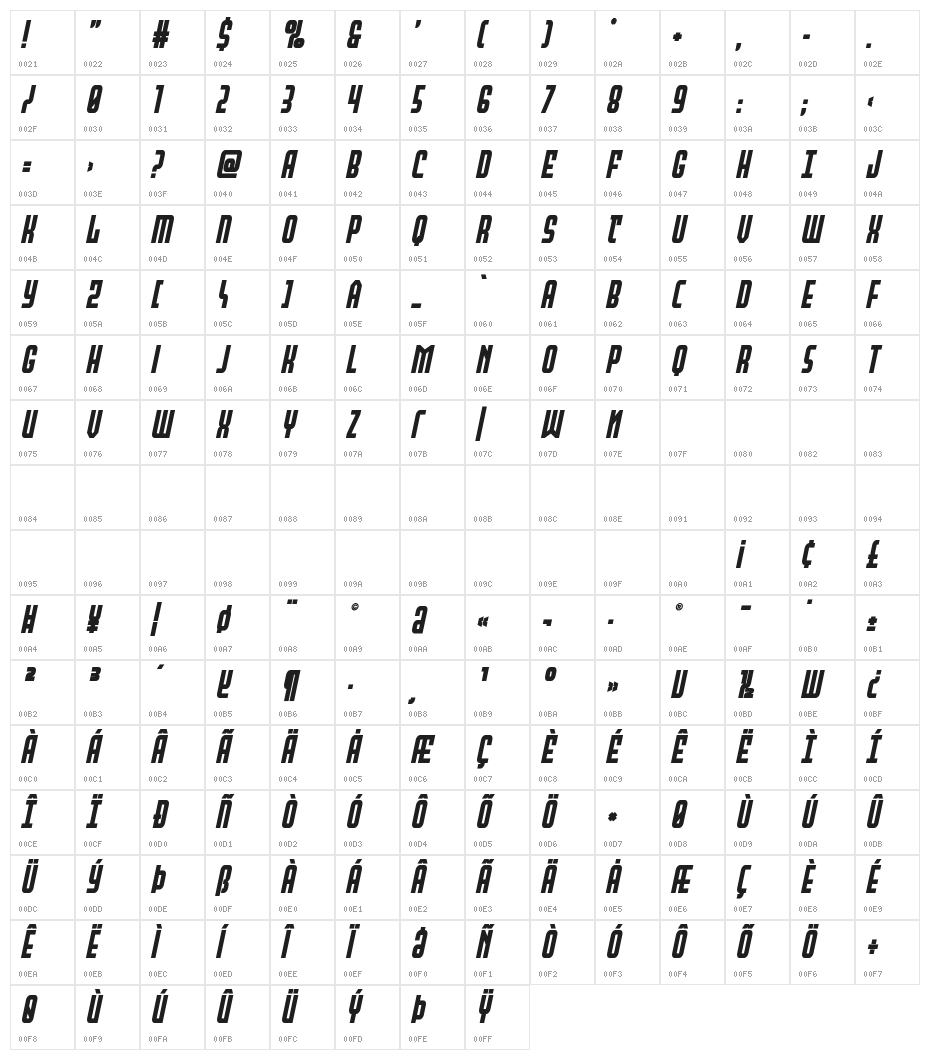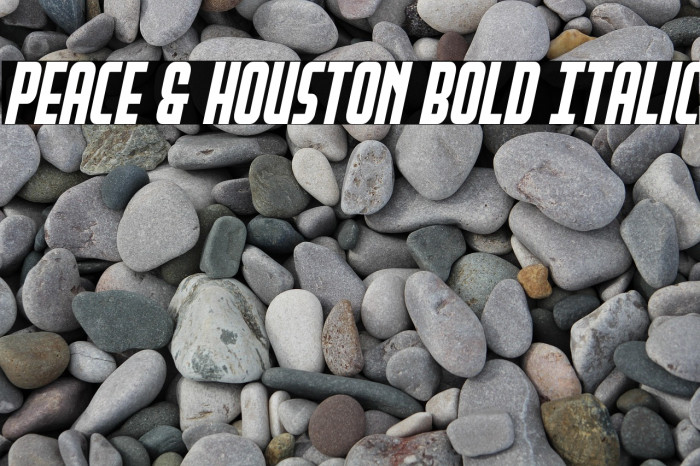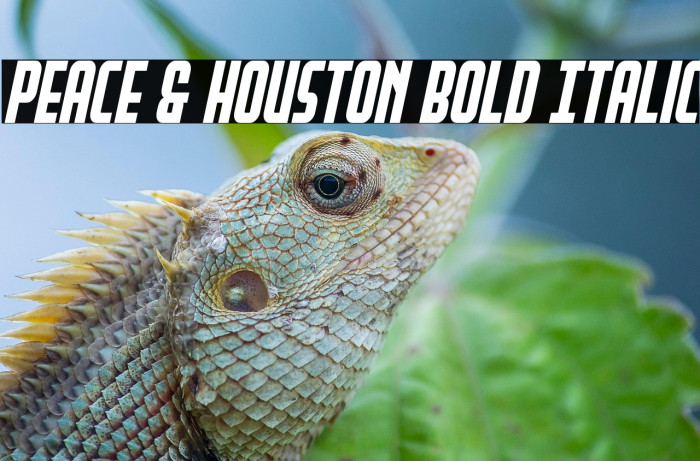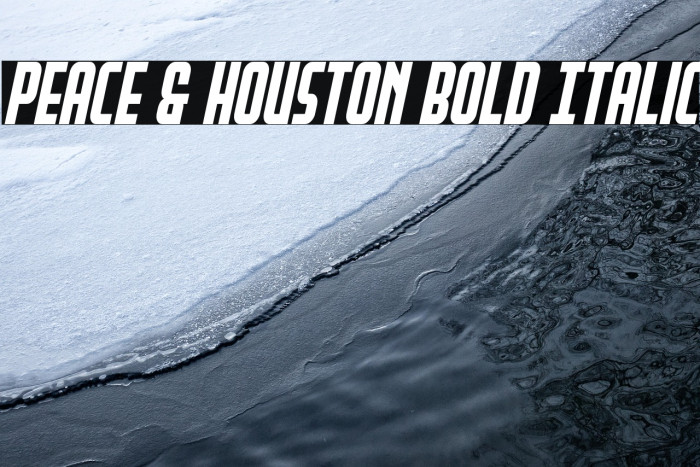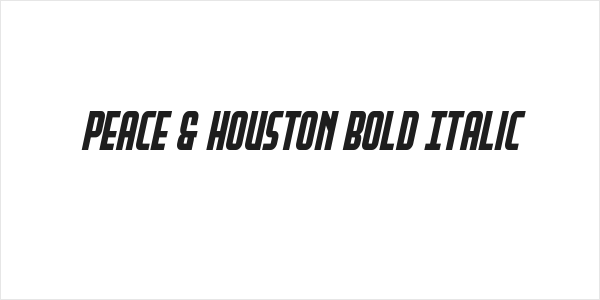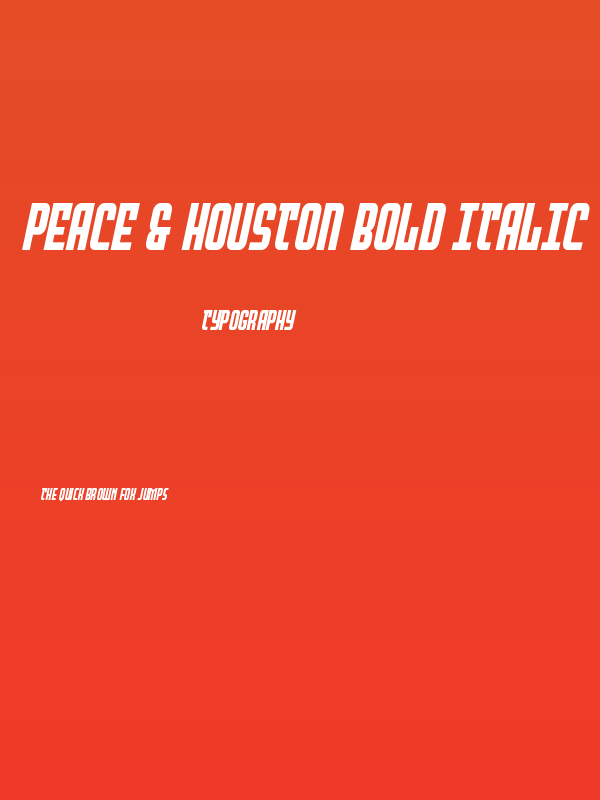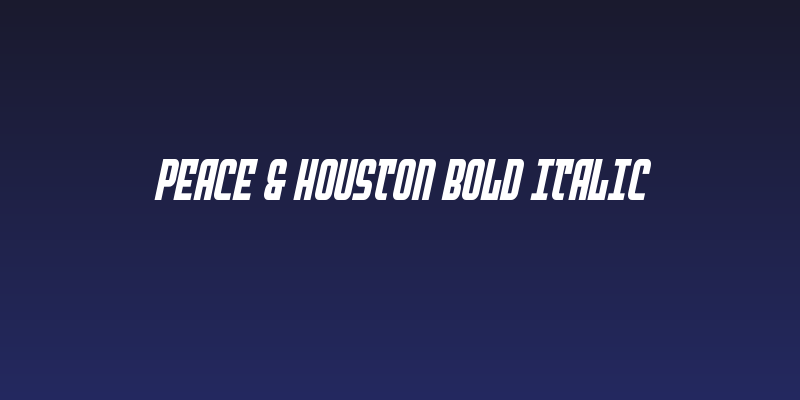
Peace & Houston Bold Italic Font
Peace & Houston Bold Italic Description
This font features a bold and italicized style with a strong, dynamic presence. The characters are slightly condensed, giving it a compact and powerful look. The strokes are thick and consistent, providing a sense of stability and strength. The italic slant adds a sense of motion and urgency, making it suitable for impactful headlines and attention-grabbing designs. The overall design is modern and assertive, with a clean and sharp appearance that stands out in any context.
| Proposed Projects | Ideal for sports branding, dynamic posters, impactful headlines, and modern advertising campaigns. |